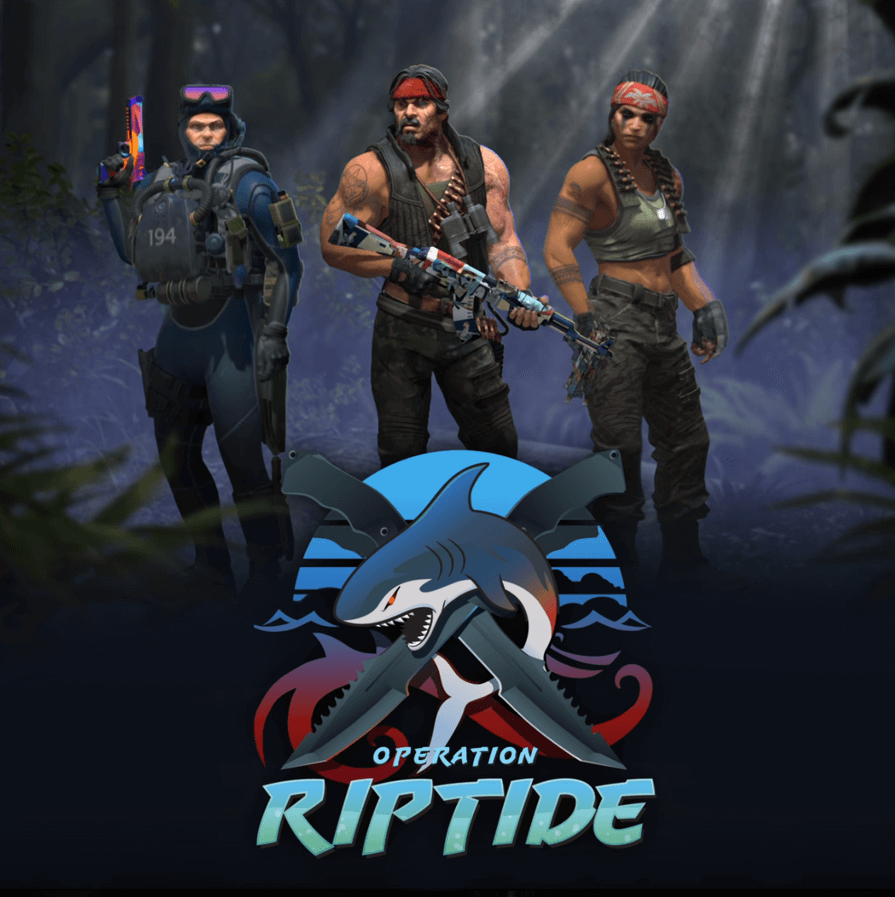
Operation Riptide Font
Fonts in UseOperation Riptide is a first-person shooter game released by Valve Corporation in September 2021 as part of the Counter-Strike: Global Offensive series, featuring new maps, skins, and a battle pass system.
The title was created using the all-capital typeface called Uppercut Angle which was originally crafted by Joachim Müller-Lancé for the branding of the San Francisco Krav Maga training center.